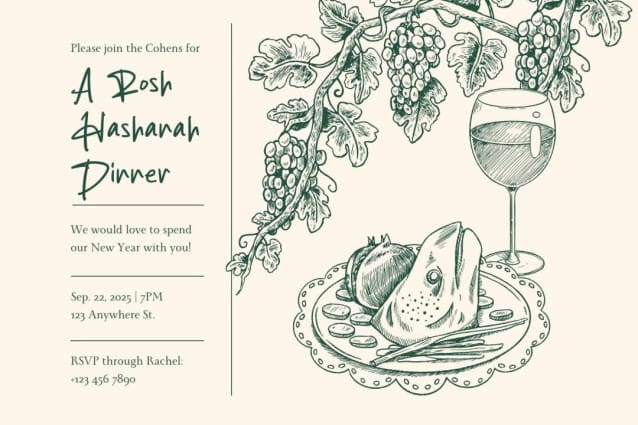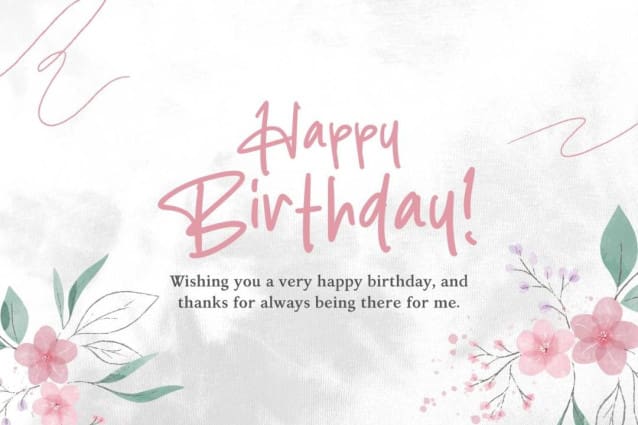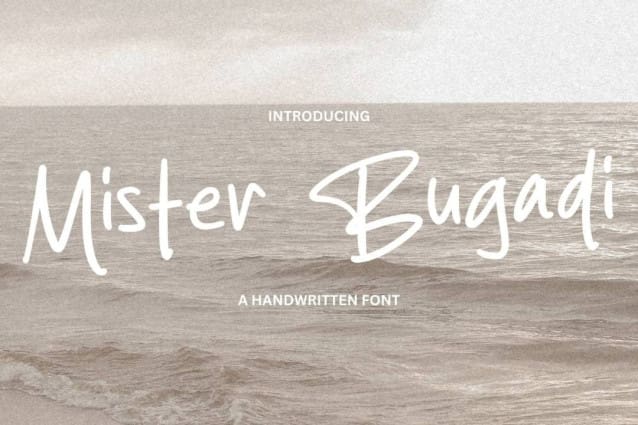
Mister Bugadi Font
Mister Bugadi Font is a simple and friendly handwritten font. Its natural and unique style makes it incredibly fitting to a large pool of designs. The only limit is your imagination!